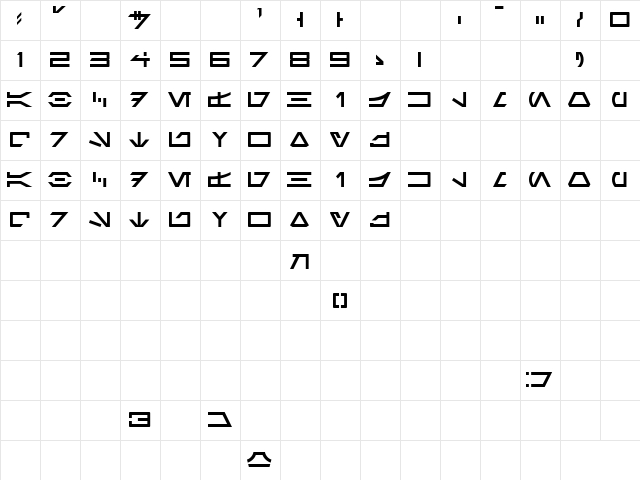
Aurebesh Regular
Design Context for Aurebesh Typeface
Aurebesh is a composed and adaptable typeface that performs quietly and consistently across a wide range of design contexts.